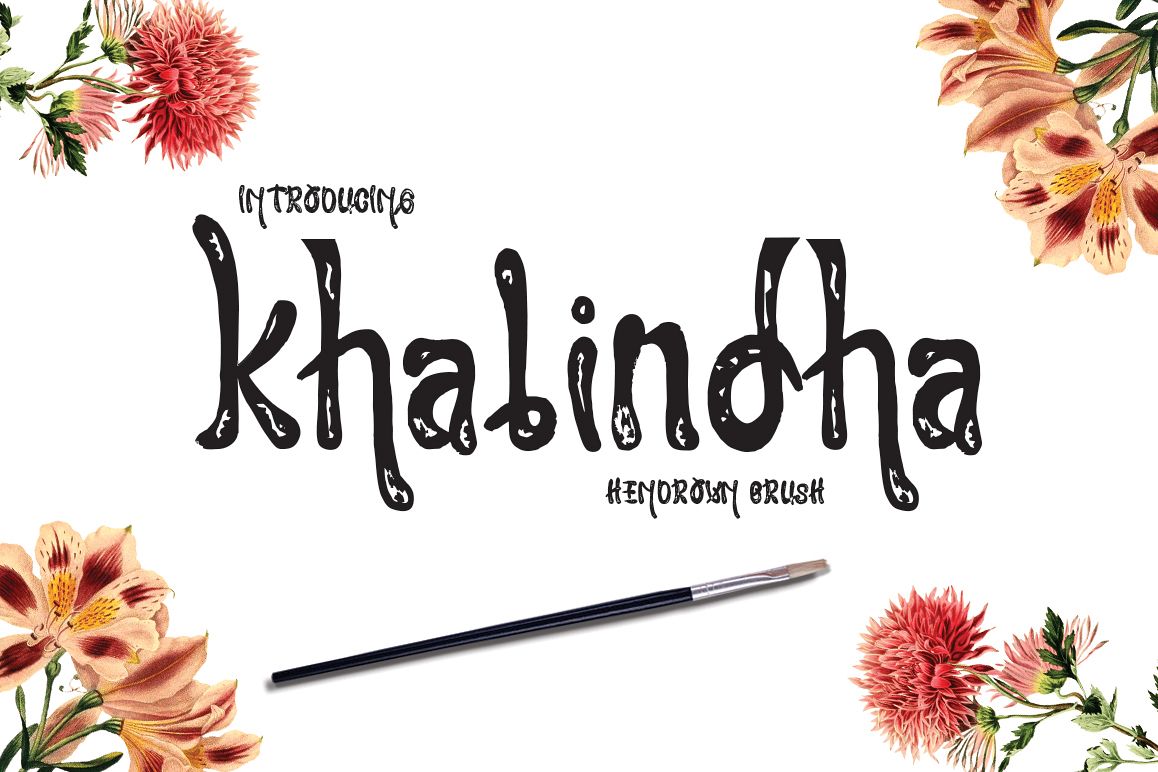
Khalindha
Khalindha is Handdrawn font, fantastic and unique.
Can be used for various purposes.such as headings, logos, t-shirt, letterhead, , lable, news, posters, badges etc. To enable the OpenType Stylistic alternates, you need a program that supports OpenType features such as Adobe Illustrator CS, Adobe Indesign & CorelDraw X6-X7.